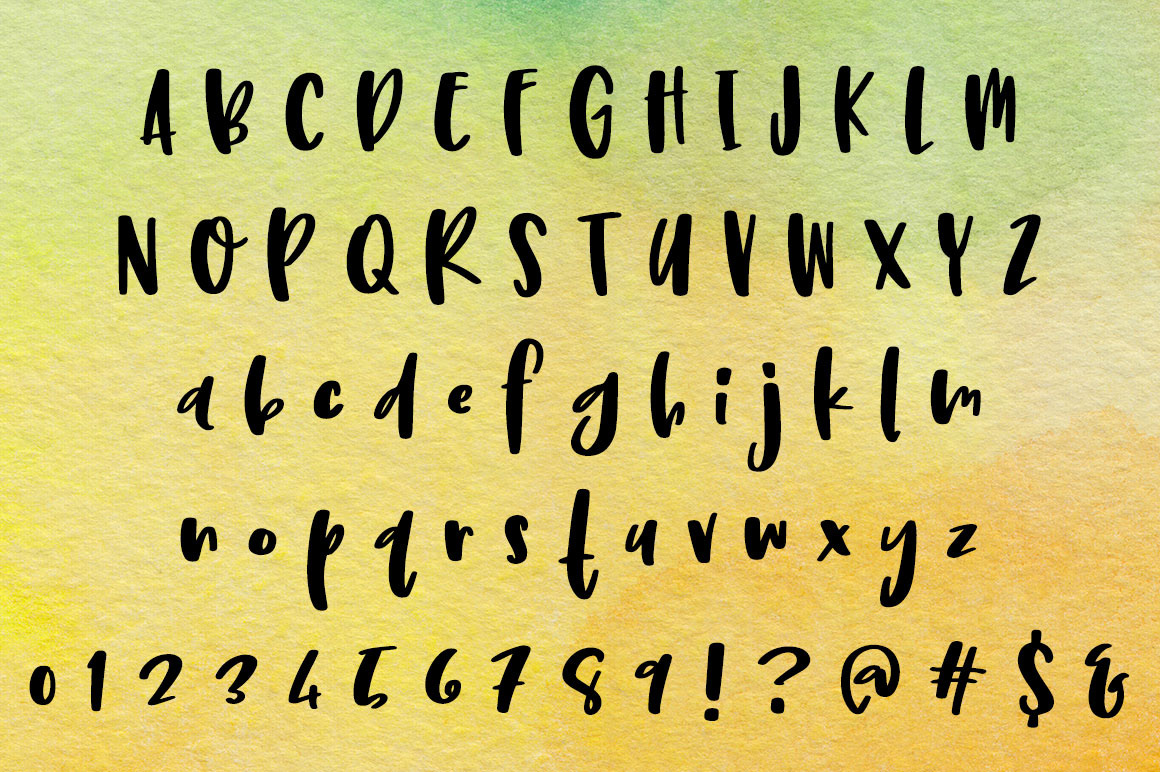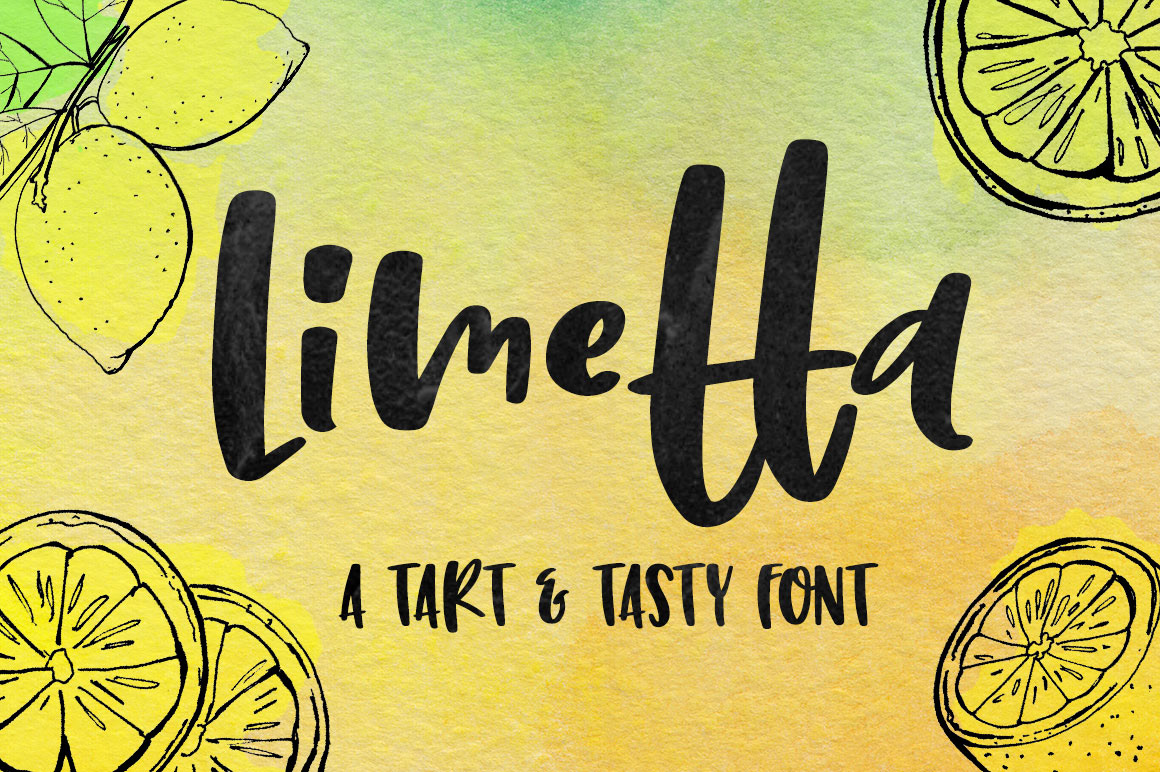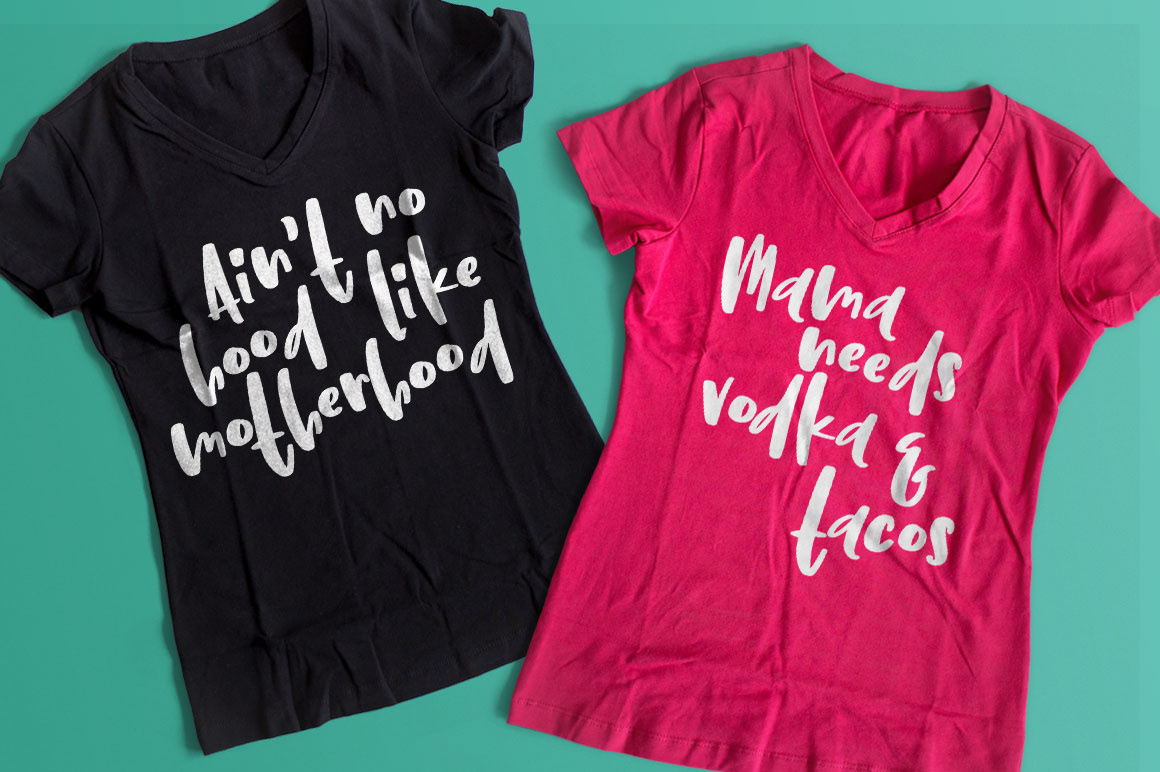
Looking for a fun, hand-lettered font with a casual flair? Check out Limetta! With a fun bouncing baseline for the lowercase, a hot hand-lettered look to the uppercase, and heavy-to-heavier line weights, it’s the perfect font for crafting, logo design, signs, and more!
In addition to the basic alphabet and numbers, Limetta contains tons of punctuation, as well as over 350 Latin-1, Latin-A, Latin-B, and Latin Extended characters for language support (including English, French, Spanish, German, Polish, Romanian, Portuguese, Swedish, Finnish, Norwegian, Danish, Esperanto, Czech, Dutch, Welsh, Filipino, Turkish, and more)!
– Uppercase A-Z and lowercase a-z
– Numbers 0-9 and plenty of punctuation
– Over 350 extended Latin characters for language support
– 15 lowercase double-letter ligatures